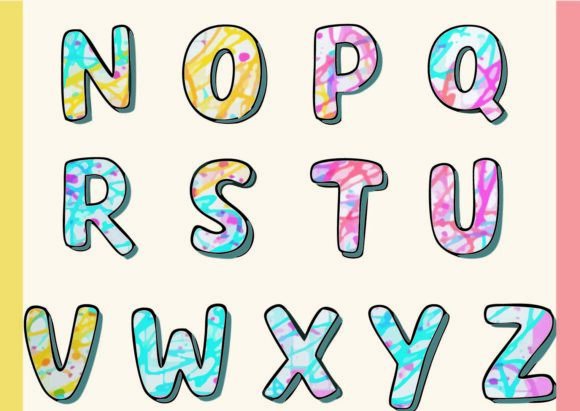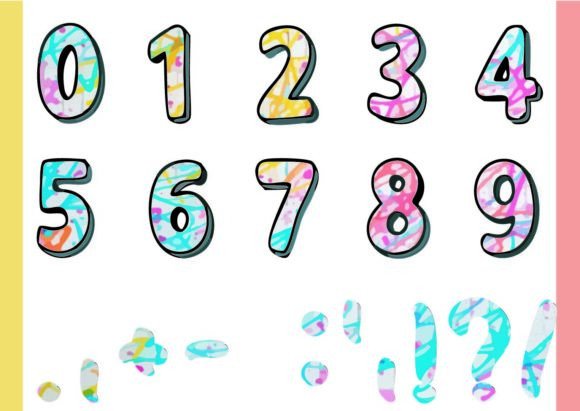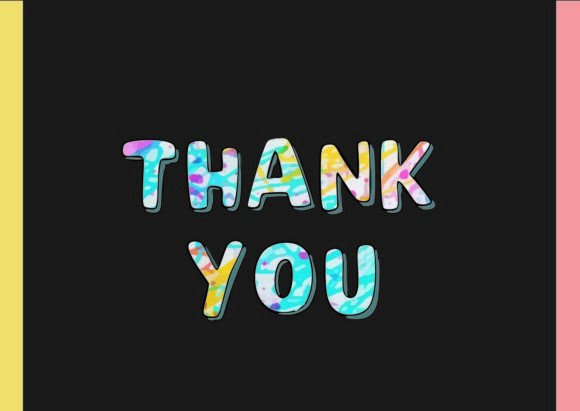
Daisy Font: A Colorful Heaven for Designers and Crafters
Are you tired of using the same old fonts in your designs? Look no further than the Daisy Font, a vibrant and unique color font that is sure to take your typography to the next level. In this article, we’ll explore the features and benefits of the Daisy Font, and why it’s a must-have for designers and crafters alike.
What is Daisy Font?
Daisy Font is a color font, also known as a chromatic font, that features a different set of colors for every single glyph. This means that each letter, number, and symbol in the font has its own unique color scheme, creating a stunning visual effect that’s sure to grab attention. The font is designed to be a “colorful heaven,” with intricate sets of paths and connections that make each glyph feel like a miniature typographic painting.
So why choose the Daisy Font for your next design project? Here are just a few of the features and benefits that make it a standout choice:
- Unique and eye-catching: With its colorful and intricate design, the Daisy Font is sure to grab attention and add visual interest to your designs.
- Easily customizable: As a color font, the Daisy Font can be easily edited and customized to suit your specific design needs.
- Perfect for creative projects: Whether you’re working on a craft project, a branding campaign, or a personal design project, the Daisy Font is a great choice for adding a touch of personality and whimsy.
Use Cases for Designers and Crafters
So what kinds of projects are best suited to the Daisy Font? Here are a few ideas to get you started:
- Crafting and scrapbooking: The Daisy Font is a perfect choice for crafters and scrapbookers looking to add a pop of color and personality to their projects.
- Branding and packaging: The font’s unique and eye-catching design makes it a great choice for branding and packaging projects that need to stand out.
- Social media graphics: The Daisy Font is a great choice for creating social media graphics that need to grab attention and add visual interest.
- Personal stationery: Use the Daisy Font to create personalized stationery, such as greeting cards, invitations, and thank-you notes.
Tips for Using the Daisy Font
Here are a few tips for getting the most out of the Daisy Font:
- Experiment with different colors: While the font comes with a pre-set color scheme, feel free to experiment with different colors and combinations to find the perfect look for your project.
- Play with font sizes: The Daisy Font looks great at a range of font sizes, from small and delicate to large and bold.
- Pair with complementary fonts: For added visual interest, try pairing the Daisy Font with complementary fonts that add contrast and texture to your design.
In conclusion, the Daisy Font is a unique and versatile color font that’s perfect for designers and crafters looking to add a touch of personality and whimsy to their projects. With its intricate design, highly customizable, and compatibility with a range of design software, the Daisy Font is a must-have for anyone looking to take their typography to the next level.